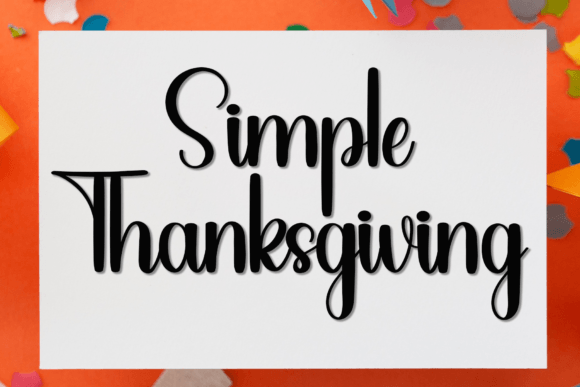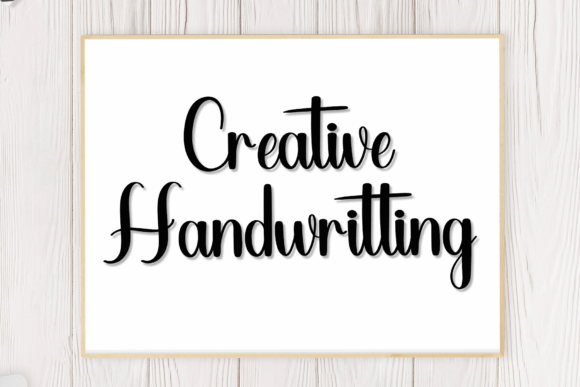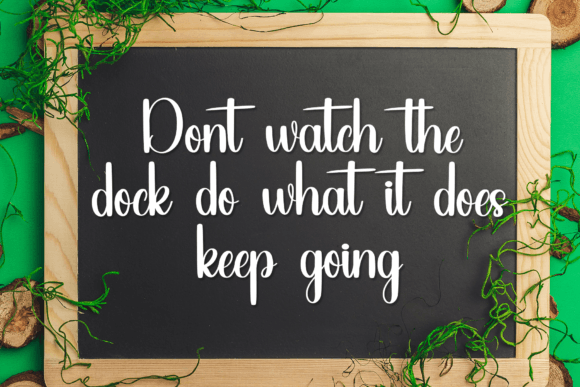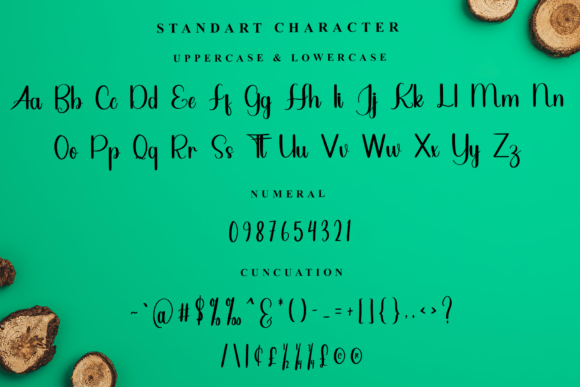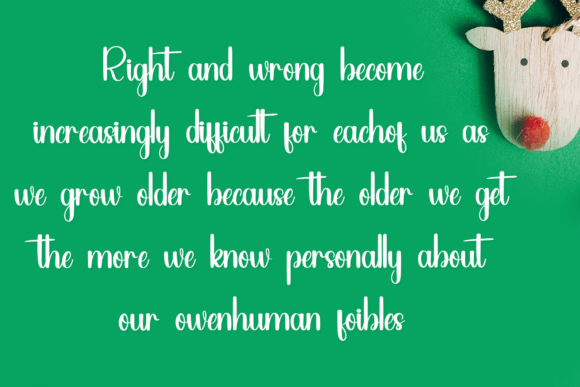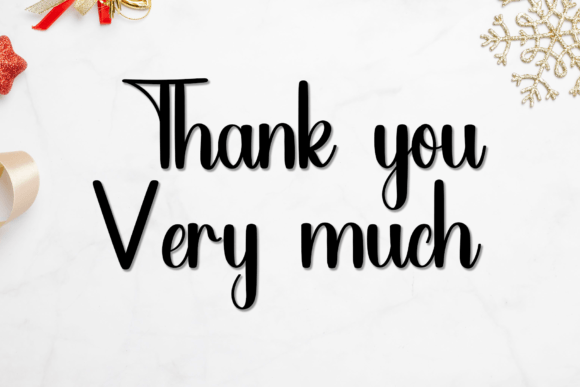
Deck the Halls with Christmas Invitation Font
The holiday season is upon us, and what better way to spread cheer than with a festive and fun Christmas invitation font? If you’re a designer or crafter looking to add some holiday magic to your projects, you’re in luck! Christmas Invitation is a delightful typeface that’s sure to capture the spirit of the season.
A Festive and Happy Typeface
Christmas Invitation font is a beautifully designed typeface that’s perfect for creating holiday-themed projects. With its decorative elements and unique flair, it adds a touch of charm to your designs. Whether you’re creating greeting cards, gift labels, or holiday-themed projects, this font brings a cheerful and nostalgic atmosphere to your words.
As a designer or crafter, you know how important it is to have the right tools to bring your creative vision to life. Christmas Invitation font is the perfect addition to your design arsenal. With its wide range of uses, you can create everything from:
- Holiday greeting cards and invitations
- Gift labels and tags
- Holiday-themed party decorations and banners
One of the best features of Christmas Invitation font is that it’s PUA (Private Use Area) coded. This means that you can access all the amazing glyphs and ligatures easily, without having to dig through complicated character maps. With PUA coding, you can simply click on the glyphs you want to use and they’ll appear in your design.
What You’ll Love About Christmas Invitation Font
Here are just a few things you’ll love about Christmas Invitation font:
- Festive and fun design: This font is designed to capture the spirit of the holiday season, with a playful and cheerful vibe that’s sure to put a smile on people’s faces.
- Decorative elements: The font features a range of decorative elements, including swashes, flourishes, and ligatures, that add a touch of elegance and sophistication to your designs.
- Unique flair: Christmas Invitation font has a unique and distinctive style that’s sure to set your designs apart from the crowd.
- Easy to use: With PUA coding, you can access all the glyphs and ligatures easily, making it simple to create beautiful designs.
Tips for Using Christmas Invitation Font
Here are a few tips for getting the most out of Christmas Invitation font:
- Use it for headlines and titles: The font’s decorative elements make it perfect for headlines and titles, where you want to make a big impact.